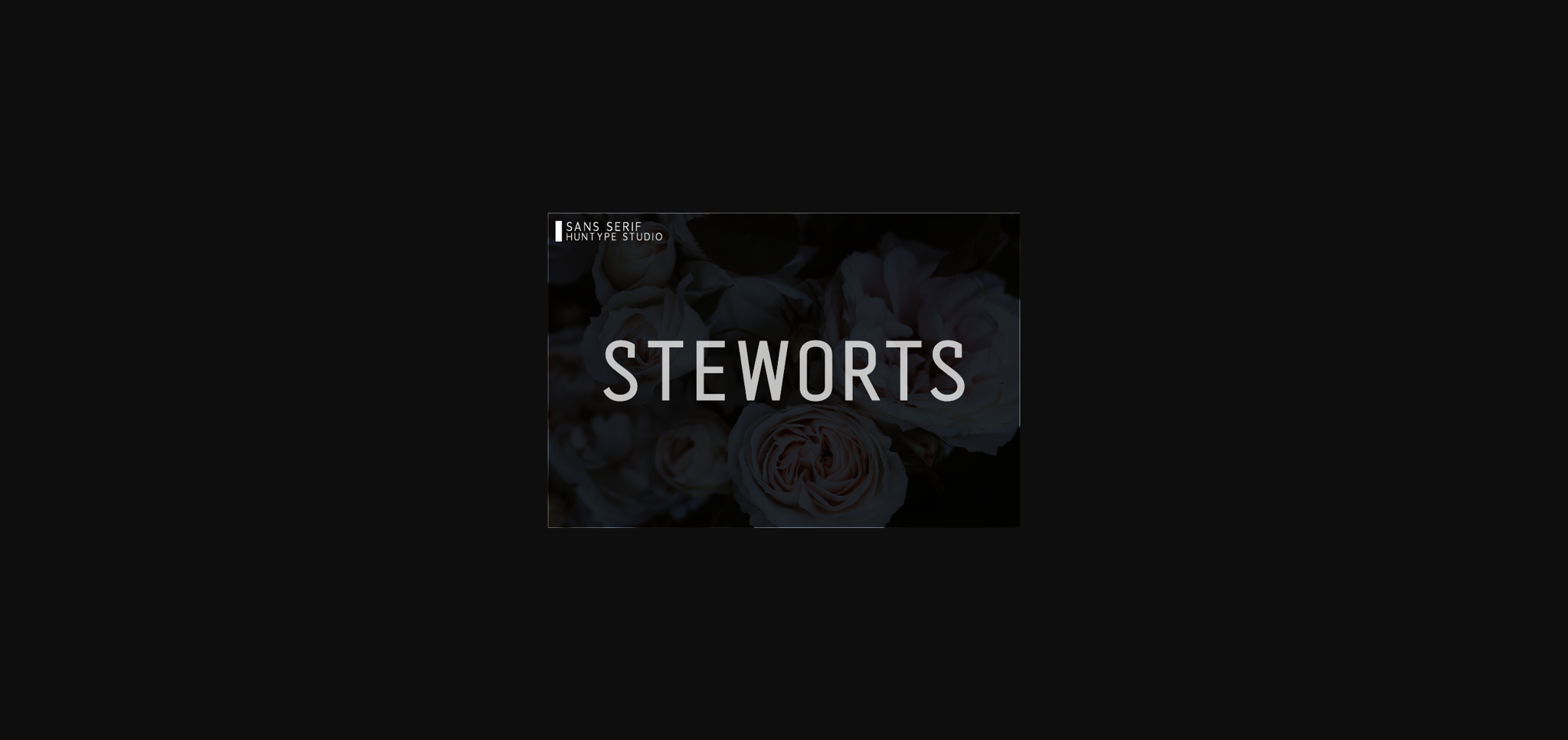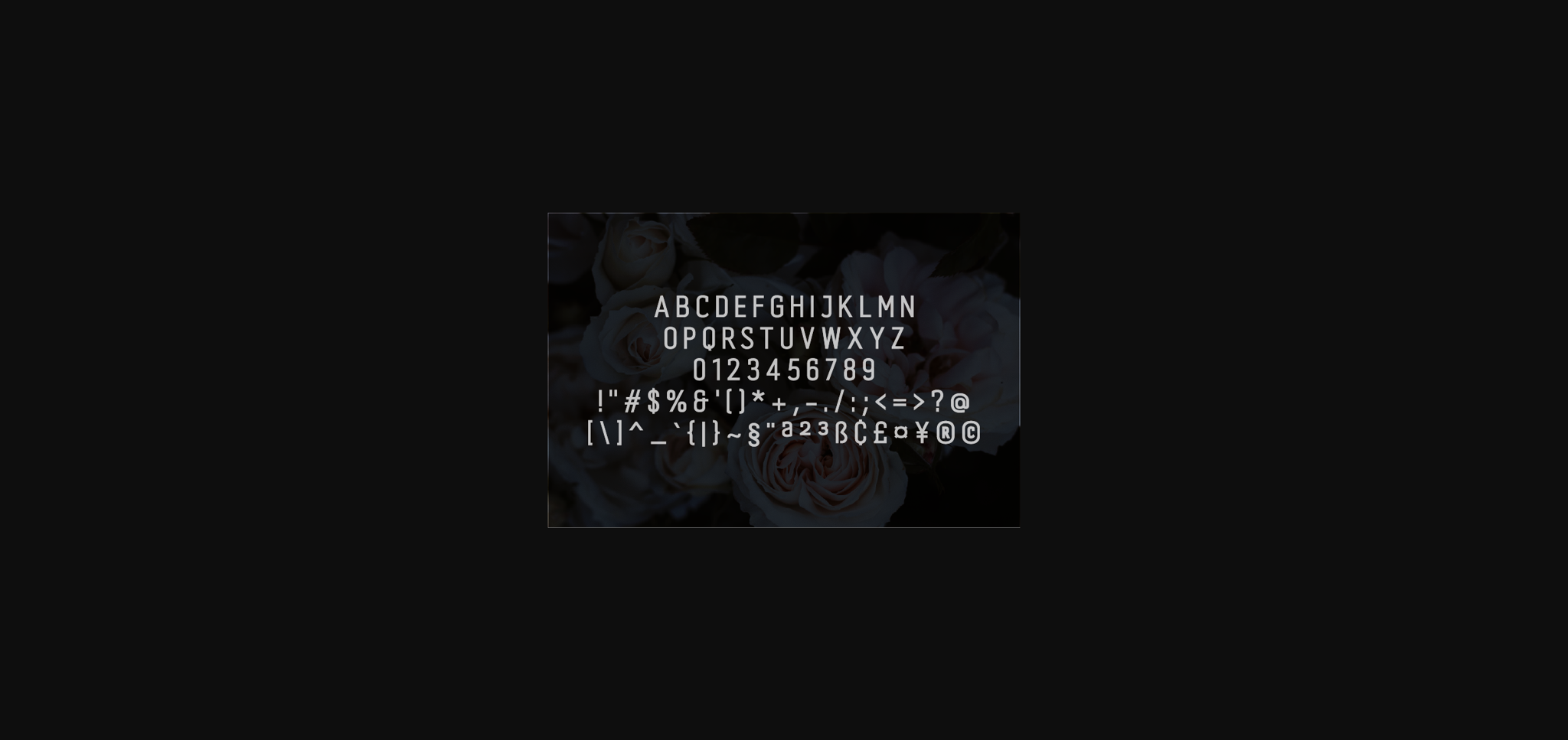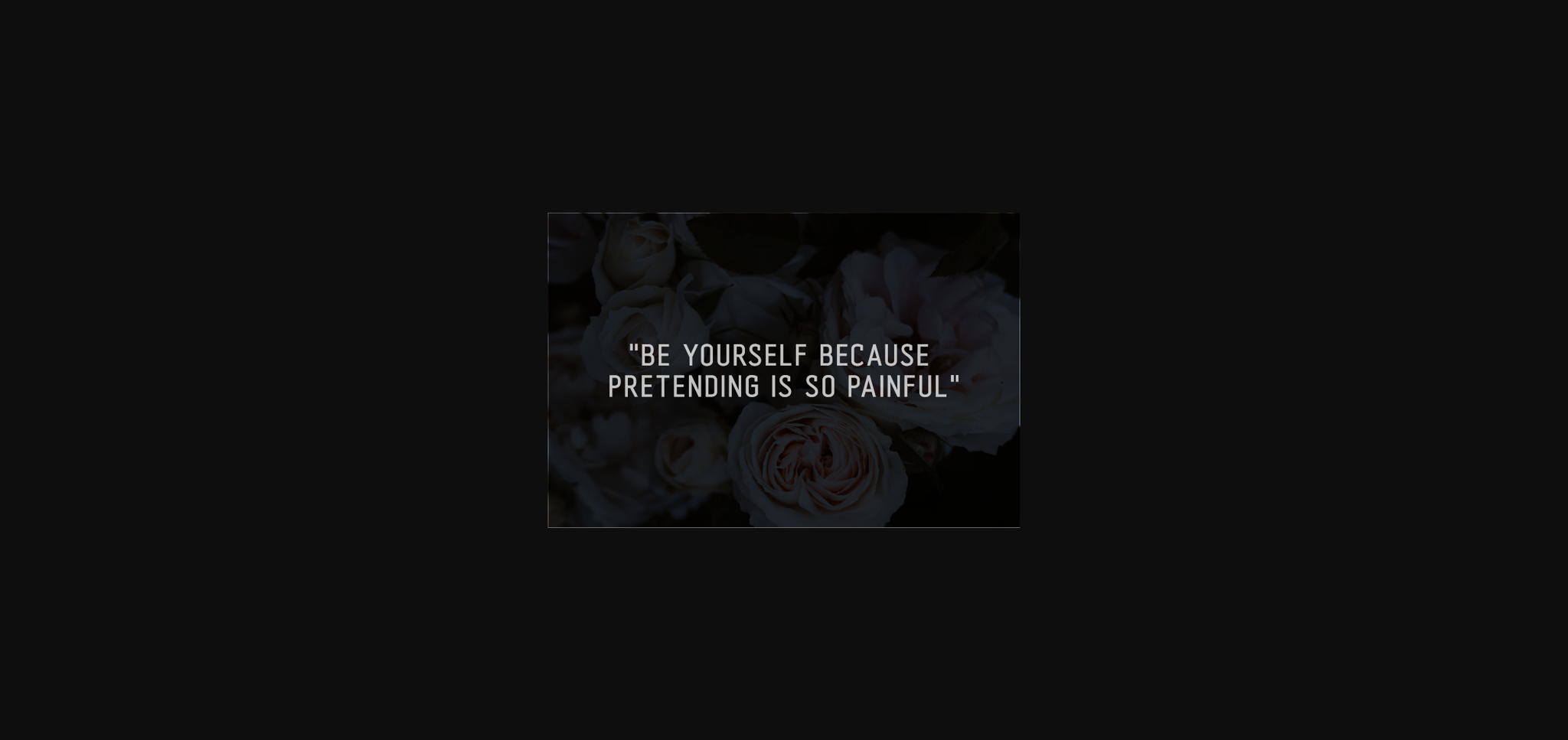
Steworts Font
About Steworts Font
Steworts is an incredibly elegant sans serif font. Due to its neat and simple style, this font is versatile and looks stunning in nearly any context. The only limit is your imagination!